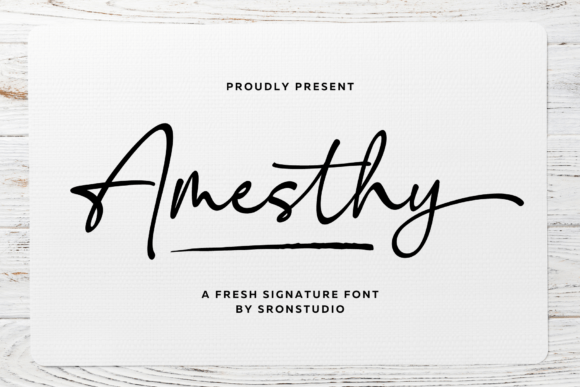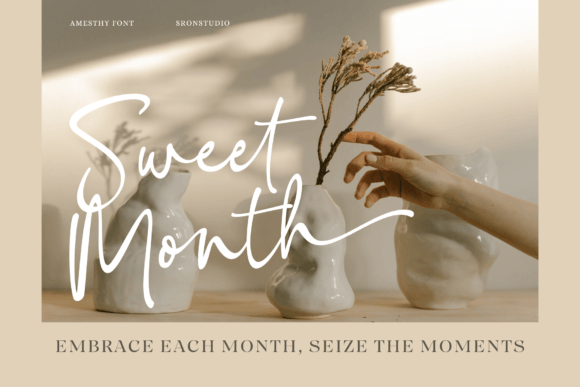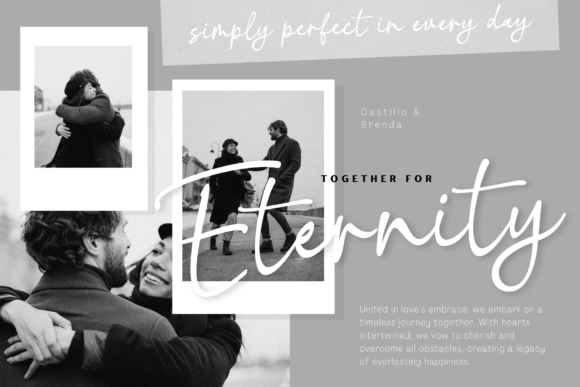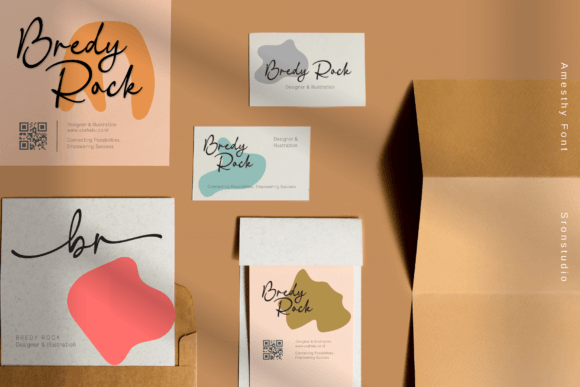
Amesthy Font: Elegant Signature Script for Branding & Wedding Invitations
About the Amesthy Font
From logos to headlines, the Amesthy Font is the perfect choice for making a lasting impression. “Amesthy” is a sophisticated signature-style font that adds elegance and personal touch to your designs. With flowing lines and stylish flourishes, it exudes refinement and luxury. Perfect for logos, invitations, and personal branding. Embrace the beauty of a handwritten signature with “Amesthy” and make a lasting impression.
Amesthy Font Usage Examples
Amesthy Font Example